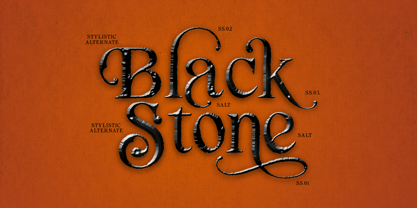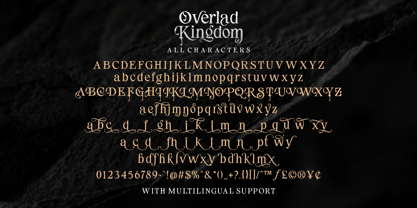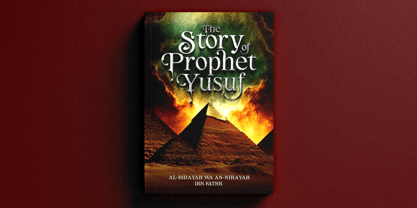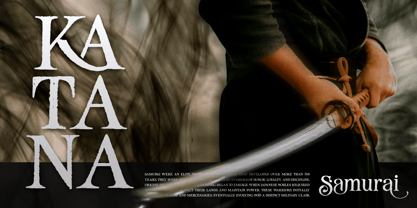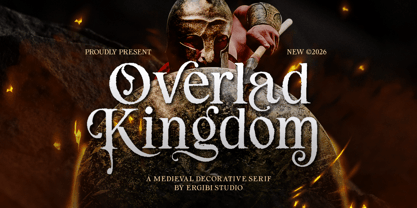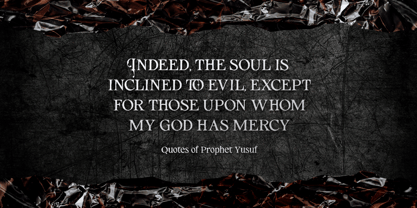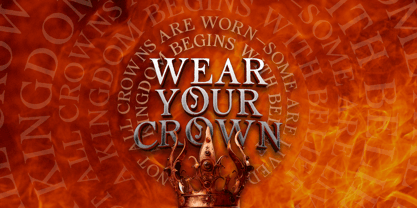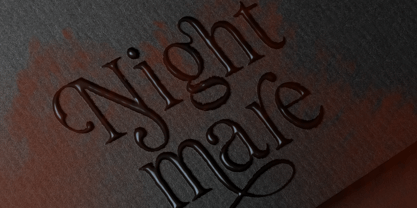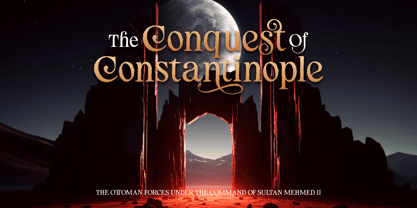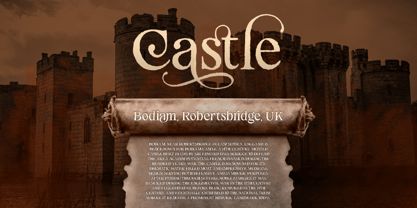
Overlad Kingdom
by Ergibi Studio
The Overlad Kingdom Font Family was designed by Riyadh Rahman and published by Ergibi Studio. Overlad Kingdom contains 1 styles. More about this family
Overlad Kingdom is a decorative serif typeface inspired by the grandeur of old empires and legendary kingdoms. Crafted with classic serif structures and bold ornamental details, this font evokes a strong sense of heritage, power, and timeless authority. Its aged character is enhanced by subtle grunge textures along the edges of each letter, giving Overlad Kingdom a weathered, battle-worn appearance—as if carved from ancient stone or forged in a medieval era. The textured contours add depth and authenticity, making the font feel raw, dramatic, and full of history.
Designers: Riyadh Rahman
Foundry: Ergibi Studio